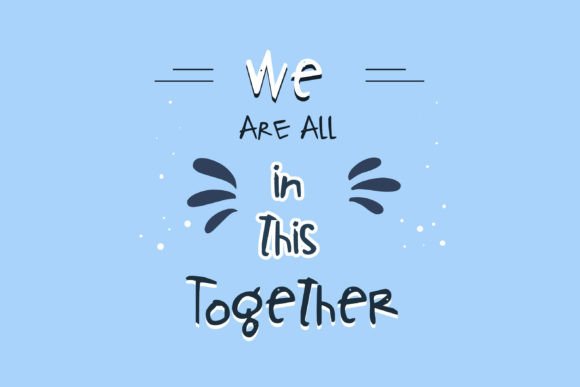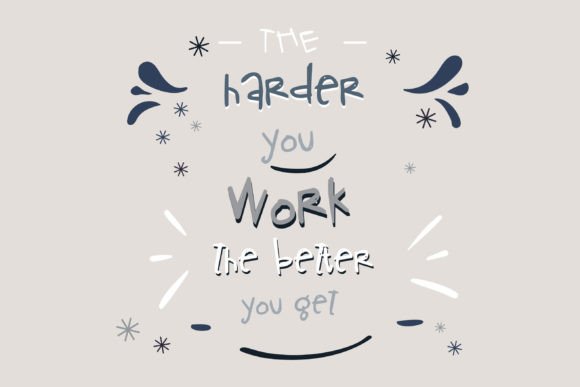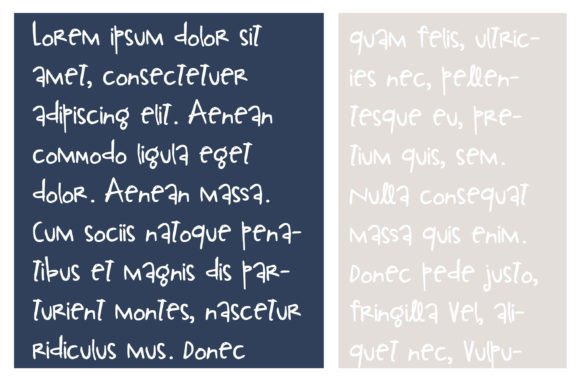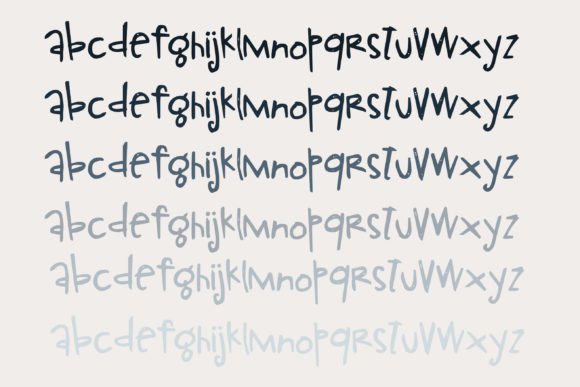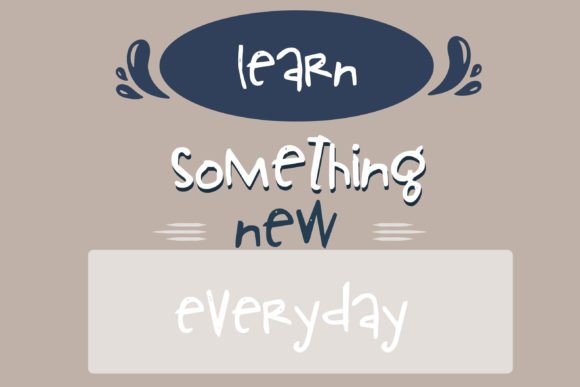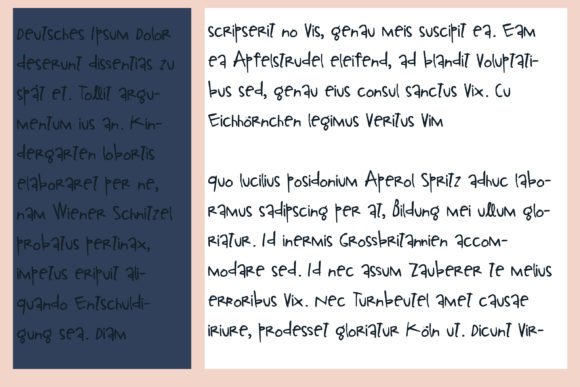
Introduction to Ldj Fat Scratch Font
Have you ever stared at a blank canvas, trying to bring a quirky idea to life, only to find yourself stuck in a sea of bland, cookie-cutter fonts? That’s when you know you need a game-changer – a design resource that can add a touch of whimsy and personality to your creative project. Enter the LDJ Fat Scratch Font, a free download that’s about to revolutionize your design game.
With its high-quality, handwritten letters and transparent background, the LDJ Fat Scratch Font is the perfect addition to any designer’s toolkit. Its irregular and asymmetrical design features unexpected flourishes and twists, making it a valuable resource for creatives who want to add a touch of uniqueness to their work. Whether you’re designing a logo, poster, or social media graphic, this font is sure to make your project stand out from the crowd.
Key Features of Ldj Fat Scratch Font
- Unique, hand-drawn design perfect for creative projects requiring a personal touch.
- Includes a transparent background, allowing for seamless integration into various design compositions.
- High-resolution design, ideal for use in print materials and digital projects requiring crisp text.
Honest Review: Ldj Fat Scratch Font
I recently stumbled upon the Ldj Fat Scratch Font, and I must say, it’s been a game-changer for my creative projects. As a designer, I’m always on the lookout for high-quality design resources that can elevate my work. The Ldj Fat Scratch Font definitely fits the bill.
What works well: ✨ The font’s distressed, hand-drawn feel adds a unique touch to my designs. It’s perfect for creative projects that require a bit of edge and character. The transparent background option also makes it easy to layer with other design elements.
- Unique, distressed design
Overall, I’m really impressed with the Ldj Fat Scratch Font. It’s a great addition to any designer’s toolkit, especially for personal or non-commercial projects. With its high-quality design and unique feel, it’s definitely worth checking out.
The Ldj Fat Scratch Font is a unique and creative design resource that can add a personal touch to your project. This font is perfect for designers looking for a high-quality, free download that can be used in various design applications.
The Ldj Fat Scratch Font is perfect for:
1. Creative projects that require a unique and eye-catching font.
2. Designs with a transparent background, allowing the font to be easily readable.